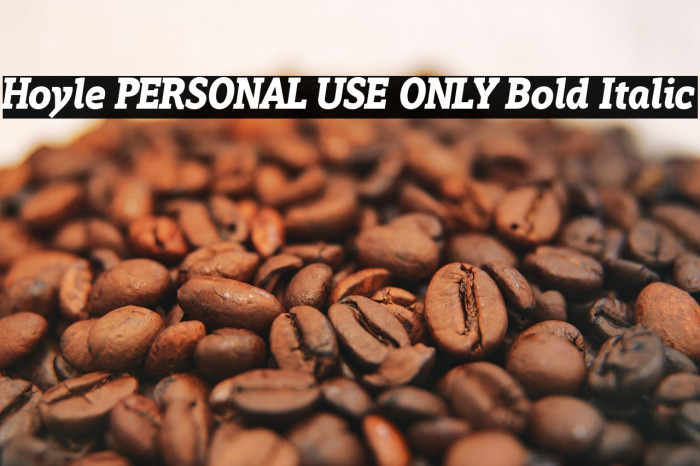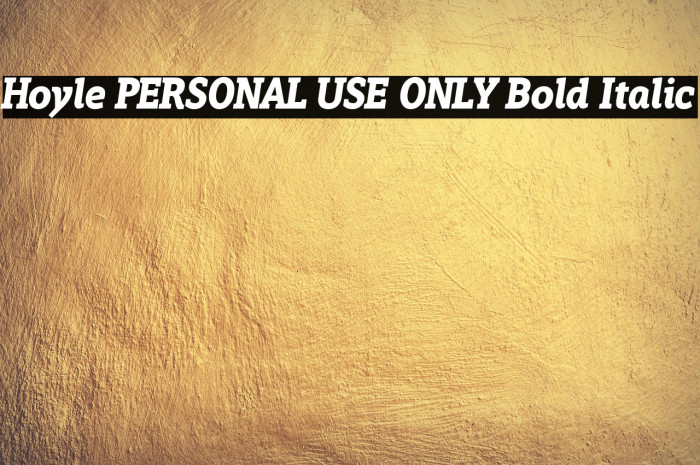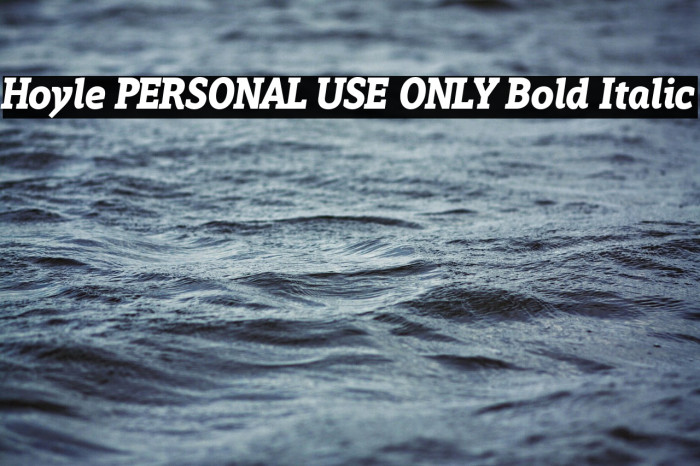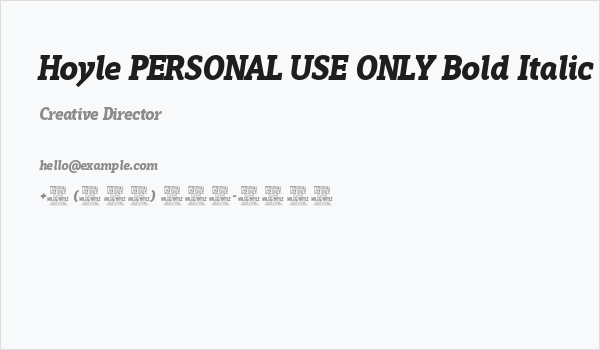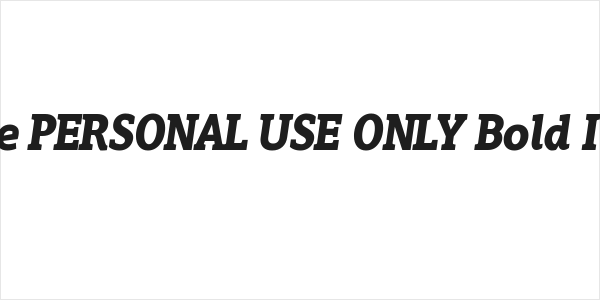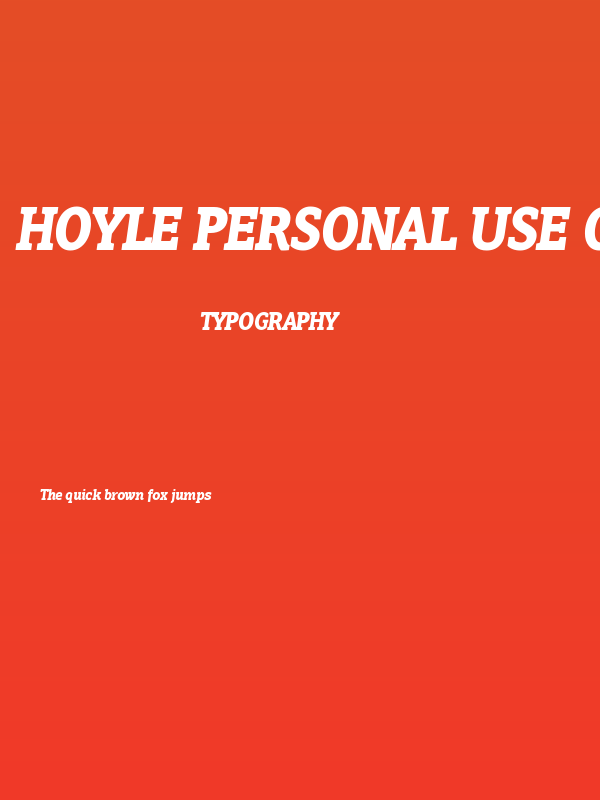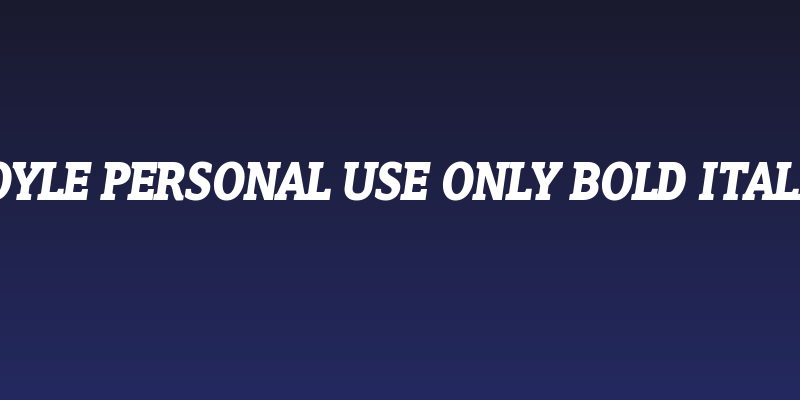
Hoyle PERSONAL USE ONLY Bold Italic Font
Hoyle PERSONAL USE ONLY Bold Italic Description
This bold italic font features strong, dynamic strokes with a pronounced slant, giving it a sense of movement and urgency. The characters are robust and well-defined, with a consistent weight throughout. The uppercase letters are tall and commanding, while the lowercase letters maintain a harmonious balance with slightly rounded edges. The numerals are clear and easy to read, making them suitable for a variety of applications. Special characters are included, each designed to complement the overall style. This font's boldness and italicized form make it ideal for attention-grabbing headlines and impactful designs.
| Proposed Projects | Ideal for headlines, posters, branding, and any design requiring a strong, impactful typeface. |